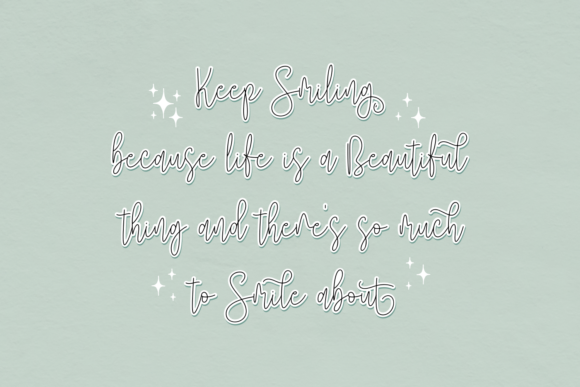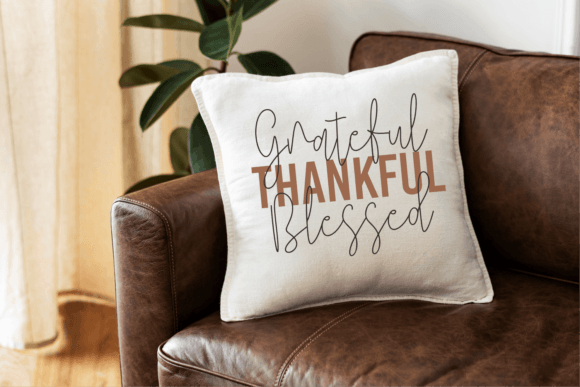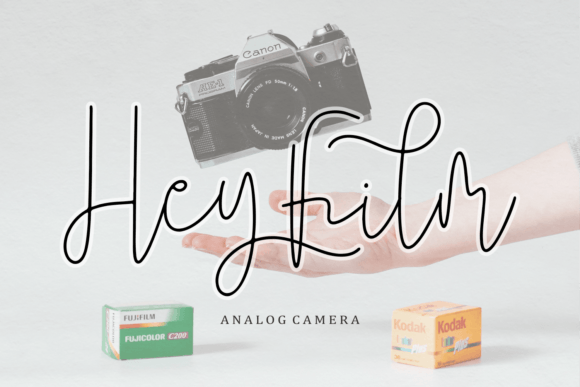
Introduction to Holy Saghne Font
As a designer, have you ever stumbled upon a font that makes your creative project truly shine? For me, that moment came when I discovered the Holy Saghne Font. Its elegant and handwritten style instantly elevated my design to the next level. I remember spending hours experimenting with different fonts, but nothing seemed to capture the essence of my brand until I found Holy Saghne.
What sets Holy Saghne apart from other fonts is its versatility and sophistication. Whether you’re creating a logo, ad, or printed quote, this font is sure to make your design stand out. Its high-quality design and transparent background make it a valuable resource for designers looking to add a touch of elegance to their projects.
In this article, we’ll delve into the world of Holy Saghne Font and explore its features, uses, and benefits for designers. From free download to design inspiration, we’ll cover everything you need to know to make the most of this incredible font.
Key Features of Holy Saghne Font
- Unique and elegant design, perfect for creative projects requiring a touch of sophistication.
- Features a transparent background, allowing for seamless integration into any design.
- Designed with high resolution in mind, making it ideal for use in large-scale designs and prints.
- Includes a comprehensive character set, covering a wide range of languages and characters.
Honest Review: Holy Saghne Font
I recently stumbled upon the Holy Saghne Font while searching for a unique design resource for a creative project. As a designer, I was impressed by the high quality and versatility of this font. One of the standout features of the Holy Saghne Font is its ability to work seamlessly with transparent backgrounds, making it perfect for logos, icons, and graphics that require a high level of customization.
Here are some of the things that work well with the Holy Saghne Font:
- ✨ Unique and creative design: The Holy Saghne Font has a distinctive and modern feel that sets it apart from more traditional fonts.
- ✨ High quality: The font is crisp and clear, making it perfect for a variety of design applications.
- ⚠️ Limited font sizes: While the Holy Saghne Font is perfect for logos and icons, it may not be the best choice for large blocks of text.
Overall, I’m impressed by the Holy Saghne Font and would recommend it to designers looking for a unique and high-quality design resource. With a little creativity, this font can add a touch of elegance and sophistication to any creative project.
Getting the Most Out of Holy Saghne Font
To get the most out of Holy Saghne Font, use it for creative projects that require a high-quality, unique design element. This font is perfect for logos, branding, and other design resources that require a transparent background.
Holy Saghne Font is commonly used for:
- Branding
- Design resources
- Brochures
- Business cards